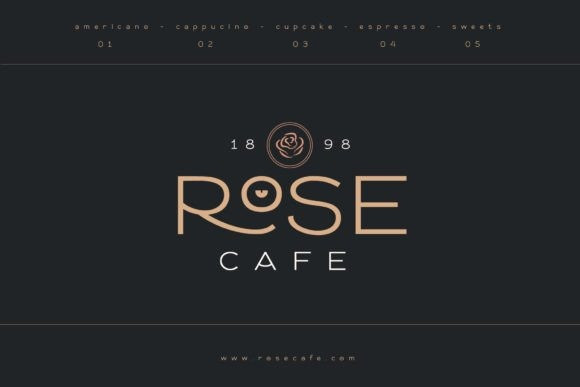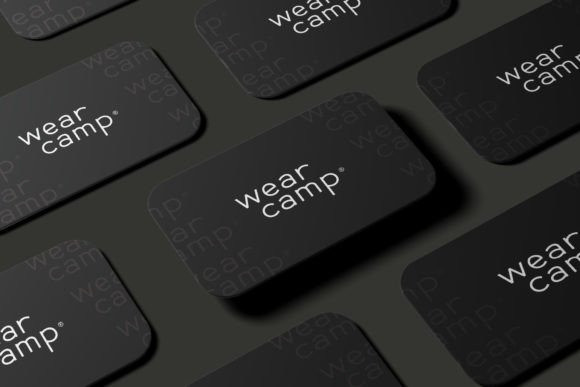
Mores Font
Mores Font is a minimalist sans serif font suitable for branding, packaging, logos, and others. This font is perfect for adding a fancy feel to your designs.